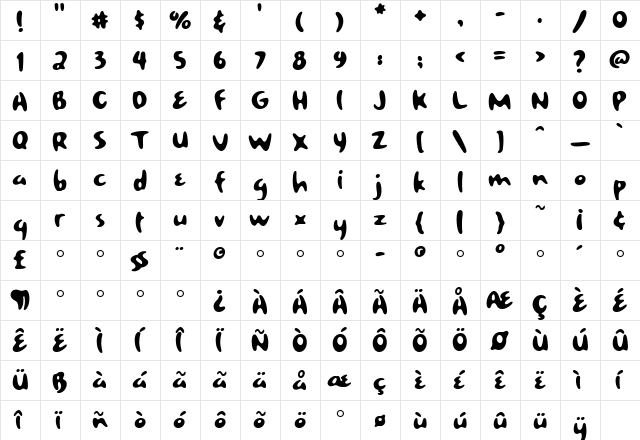
Poolhouse Medium
Design Context for Poolhouse Typeface
Poolhouse is a composed and adaptable typeface that performs quietly and consistently across a wide range of design contexts.
Pro Tip: Pair Poolhouse with a font of contrasting weight or personality to build a more expressive typographic hierarchy.